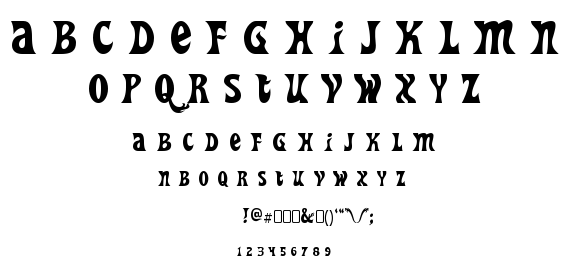
Heavy Heap is like a heap of heaviness, delivered to your soul, via tiny die-cast cars. Don’t forget to read the files inside the zip for details. Updated in 2012.